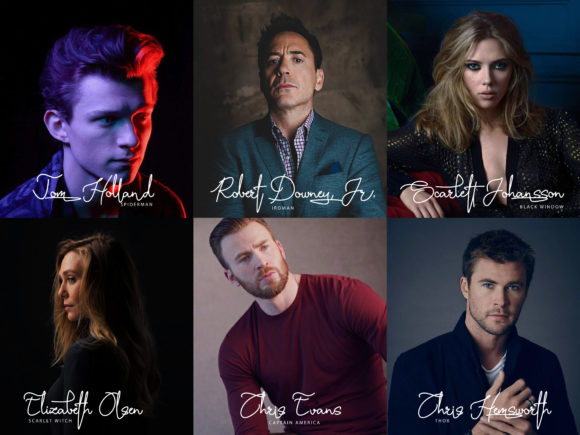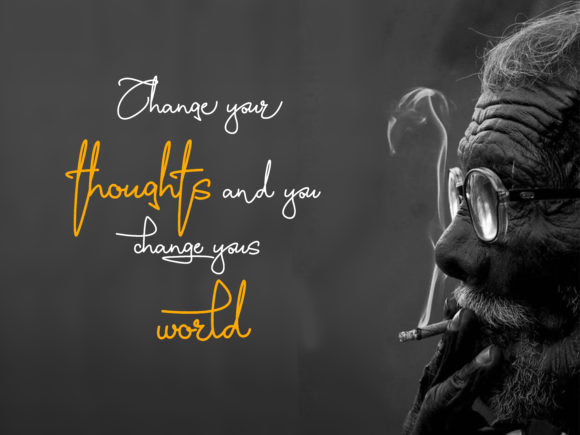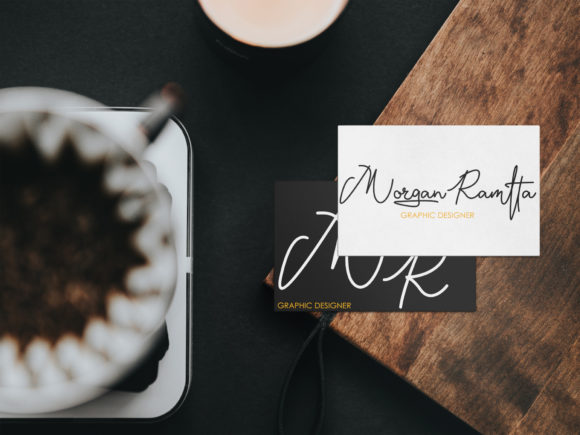
Introduction to Hello Fhillya Font
Hello Fhillya is a bold yet beautiful monoline script font perfect for many design projects.
Fall in love with its charming look & feel .
Key Features of Hello Fhillya Font
Why Choose Hello Fhillya Font?
Hello Fhillya Font offers exceptional quality and versatility, making it a valuable addition to your design toolkit. Whether you’re creating for personal projects or commercial use, Hello Fhillya Font delivers professional results.